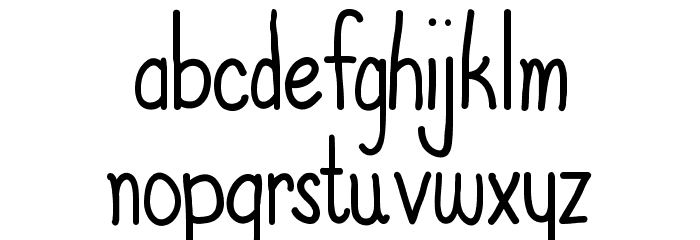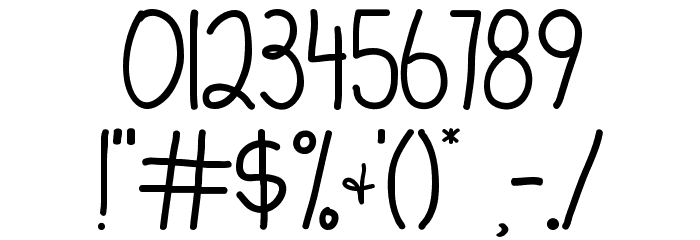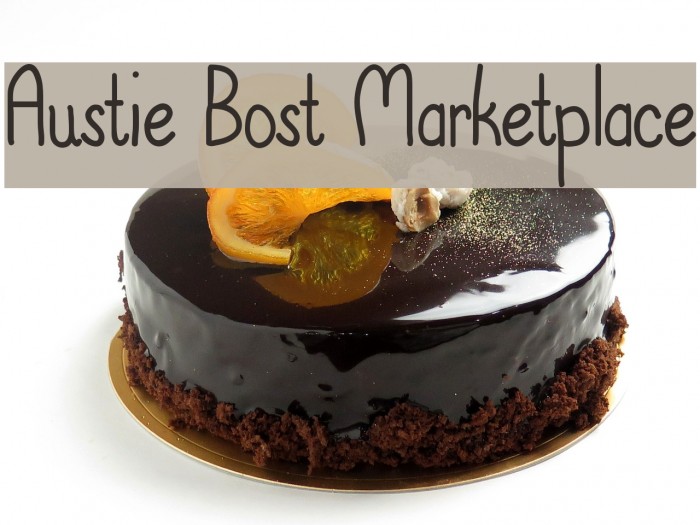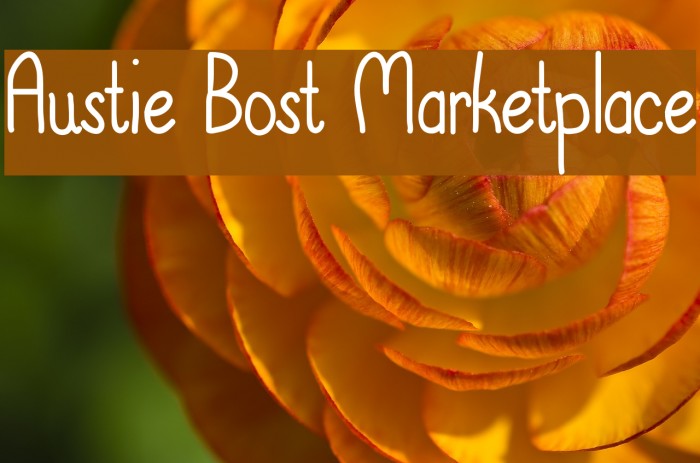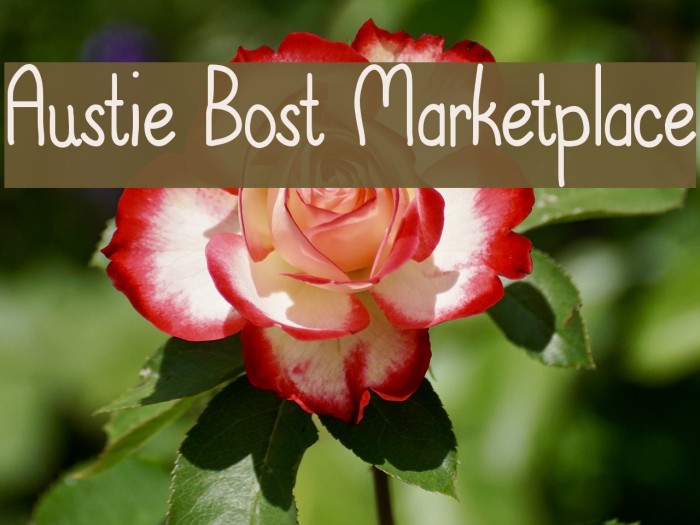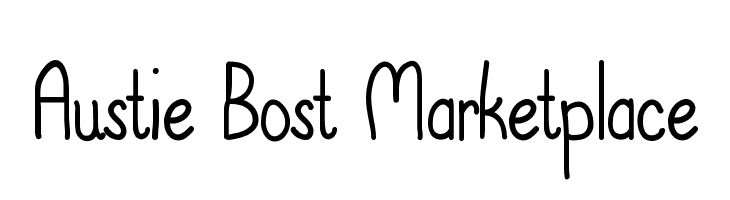
Austie Bost Marketplace Font
This font features a playful and whimsical style with a handwritten appearance. The characters are slightly elongated with rounded edges, giving them a friendly and approachable look. The uppercase letters are tall and narrow, while the lowercase letters maintain a consistent height, adding to the casual feel. The numbers are clear and easy to read, matching the overall aesthetic. Special characters are included, maintaining the same playful style. This font is perfect for projects that require a personal touch, such as greeting cards, invitations, or children's books.
A playful, handwritten-style font with rounded edges and a whimsical appearance.
- Font: Austie Bost Marketplace
- Proposed Projects: Ideal for greeting cards, invitations, children's books, and playful branding.
- Category: Handwritten
- Overall Style: Playful
- Use Case: Headlines, Logos, Invitations